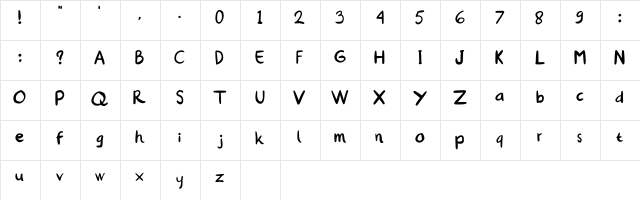
Reguloza Regular
Design Context for Reguloza Typeface
Reguloza is a composed and adaptable typeface that performs quietly and consistently across a wide range of design contexts.